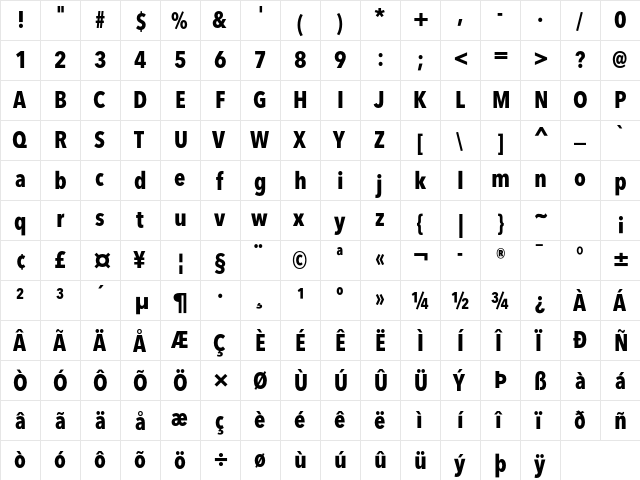
Avenir Next LT Pro Bold Condensed Font Preview
| Style | Bold Condensed |
| Foundry | Linotype Library GmbH |
| Designer | Adrian Frutiger and Akira Kobayashi |
Design Context for Avenir Next LT Pro Typeface
Avenir Next LT Pro takes a measured approach to typography — its balanced proportions and neutral character make it a reliable workhorse for both digital and print work. Its bold stroke weight gives it real presence on the page. The condensed width makes it efficient for tight spaces without sacrificing legibility.